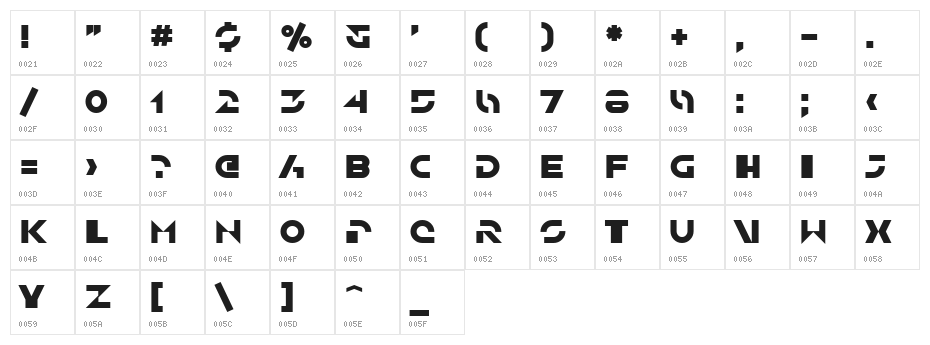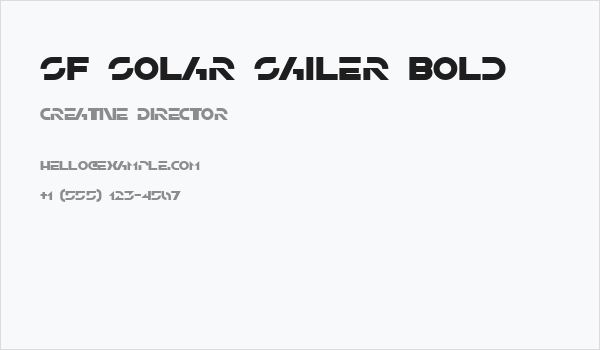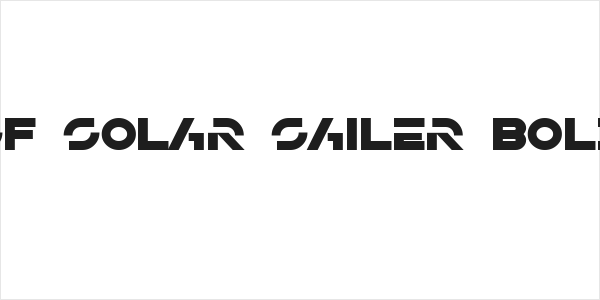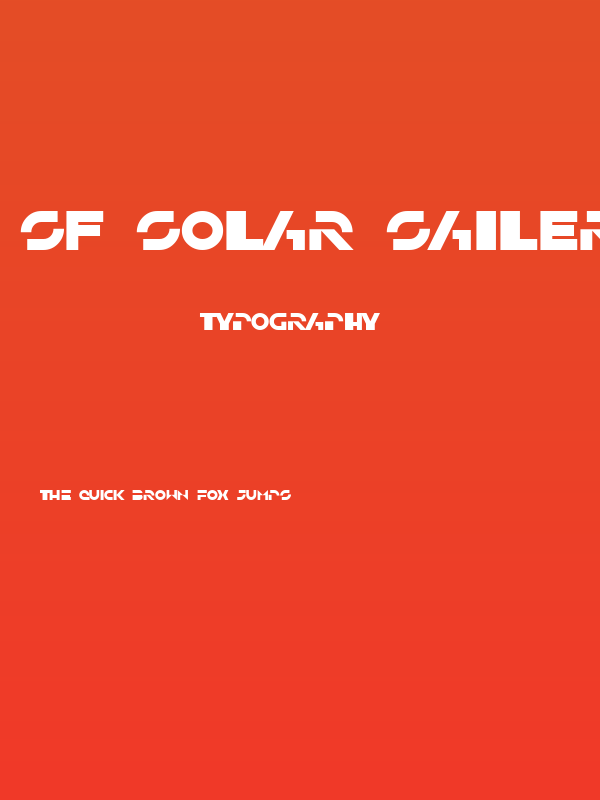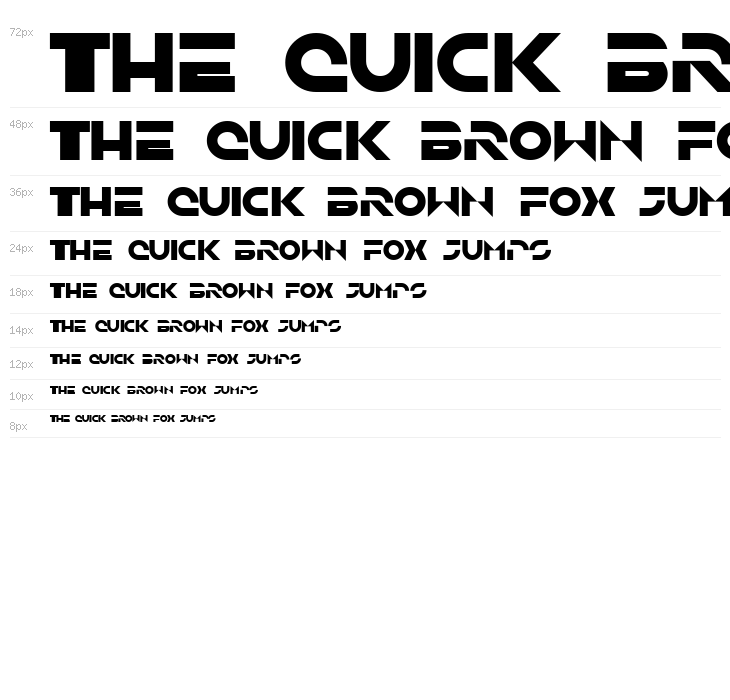
SF Solar Sailer Bold Font
SF Solar Sailer Bold Description
This font features a futuristic and geometric design, characterized by bold, angular shapes and a strong presence. The letters are constructed with a mix of straight lines and curves, creating a dynamic and modern appearance. The uppercase and lowercase letters maintain a consistent style, with unique cuts and angles that give the font a distinct, sci-fi aesthetic. The numerals and special characters follow the same design principles, ensuring a cohesive look across all glyphs. This font is ideal for projects that require a bold and eye-catching typeface, such as technology-themed designs, video game titles, or science fiction movie posters.
| Proposed Projects | Ideal for technology-themed designs, video game titles, and sci-fi movie posters. |